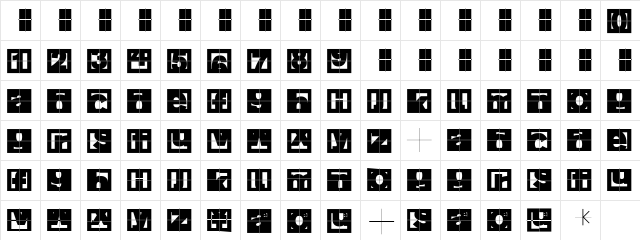
FragmentCaps Regular
Design Context for FragmentCaps Typeface
FragmentCaps is a composed and adaptable typeface that performs quietly and consistently across a wide range of design contexts.